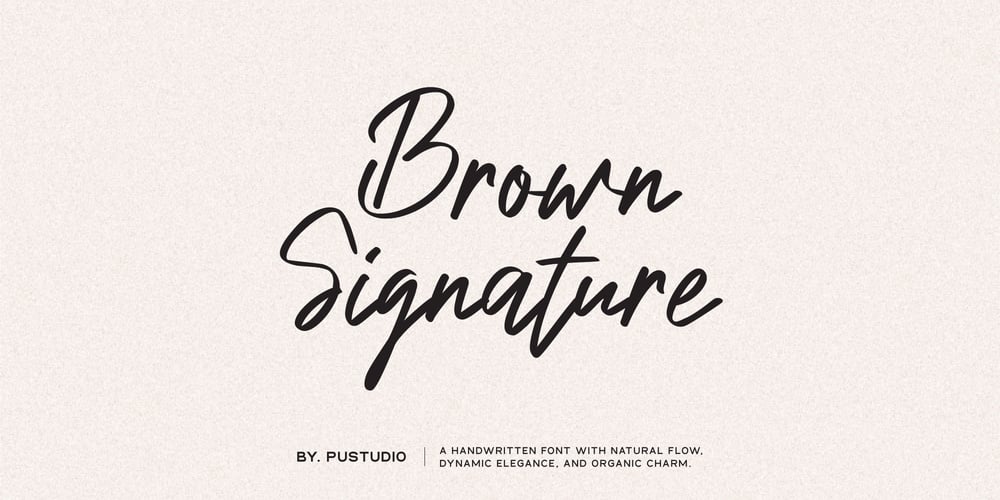
Brown Signature Font Family was designed by Haris Prawoto and published by pustudio. Brown Signature contains 1 styles and family package options. BrownSignature is a beautiful script font featuring charming and elegant handwritten characters. Add this font to your most creative ideas, and see how it makes it stand out!